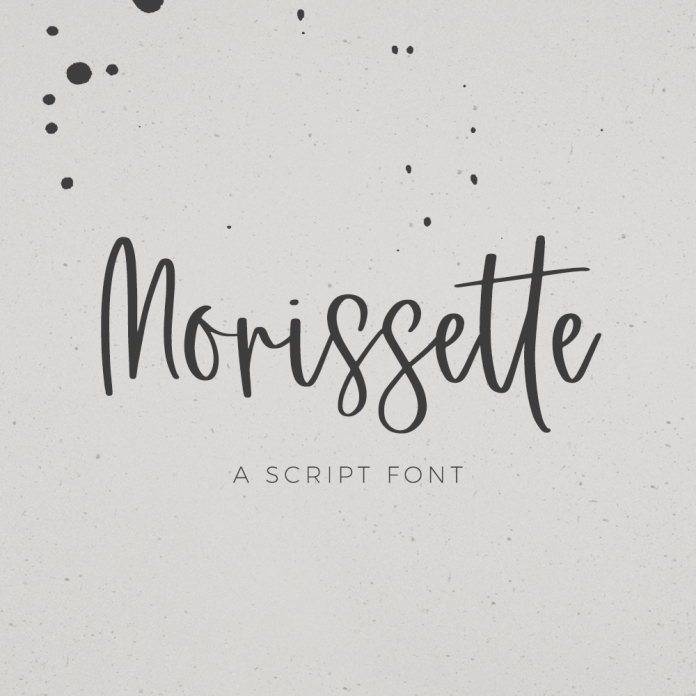
Morissette Script Font
Meet Morissette Script - it’s a little messy, a little bouncy! Morissette is best for: - logos + branding - website design + website accents - think travel blogs, fashion blogs, & more - clean print design, like magazines + flyers - header elements that need handwritten touch - quote graphics for social media Morissette includes: - full upper + lowercase characters - numbers + punctuation - Western European Language Support - 14 ligatures - bb, dd, ee, ff, gg, ll, mm, nn, oo, pp, rr, ss, th, tt - PUA-encoding